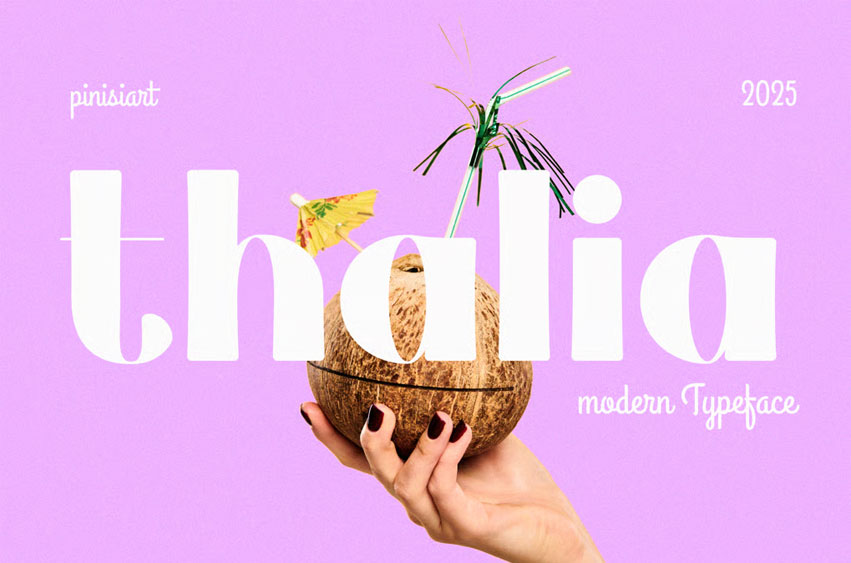
Thalia Font is a bold tropical display font that blends modern geometric structure with high-contrast letterforms, creating an energetic and playful aesthetic. Its rounded terminals and dramatic proportions evoke a sense of sunny optimism, making it perfect for editorials, Instagram graphics, or summer branding campaigns. With its expressive flow and retro-modern twist, Thalia captures both elegance and energy in every letter.
Whether you’re designing a festival poster, fashion magazine cover, or lifestyle brand identity, Thalia delivers the punch your visuals need. Its bold uppercase styling and versatile readability ensure that your message stands out, while its playful curves infuse designs with personality. This is the font for brands seeking vibrancy, campaigns demanding attention, and creatives aiming for unforgettable impact.
• Bold, stylish display with tropical energy
• Perfect balance of retro charm and modern usability
• High readability for both print and digital platforms
• Works beautifully for branding, social media, packaging, posters, and editorial layouts
• Attention-grabbing style ideal for summer campaigns and fashion promotions